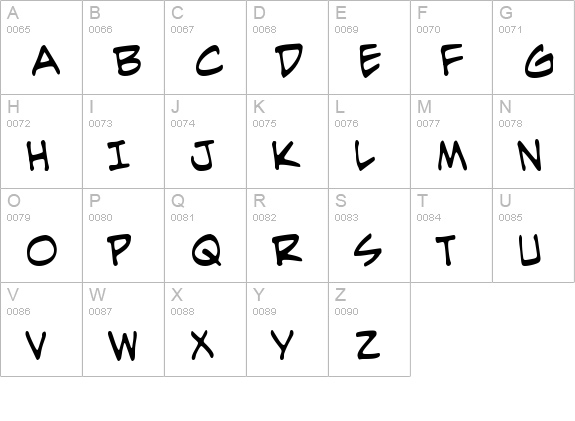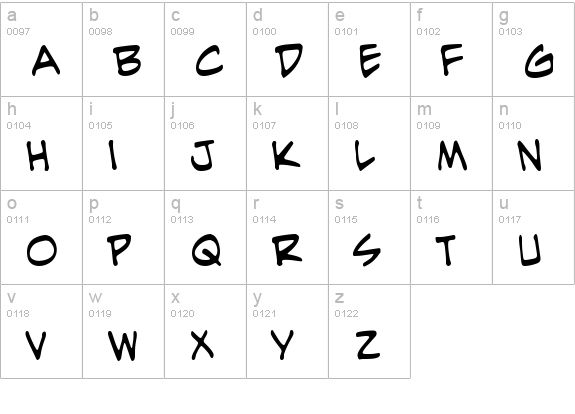
EvilGenius BB Font Details
EvilGenius BB font is a striking and bold typeface that exudes a sense of dark sophistication and mystery. Its sharp edges and unique design make it perfect for projects that aim to make a statement or create a sense of intrigue. Whether you're designing a poster, logo, or branding materials, EvilGenius BB font is sure to capture attention and leave a lasting impression. The best part is that EvilGenius BB font is completely free to download at FontsMarket.com. This means you can easily access this eye-catching font and incorporate it into your creative projects without any cost. Don't miss out on the opportunity to elevate your designs with the edgy and captivating style of EvilGenius BB font - download it for free today!